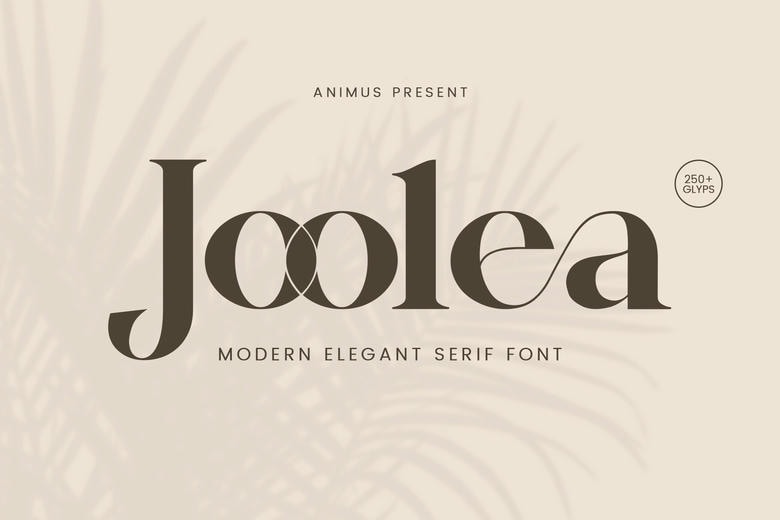
Joolea Font
The Joolea font is the epitome of refined grace, combining the classical serif bases with breathtaking modern flutters. This Joolea typeface is a high-fashion powerhouse, with over 250+ glyphs that can be used for unparalleled customization and creative expression. The highlight of the Joolea font is its beautiful interconnected ligatures (such as the overlapping double ‘o’ and the swashy ‘a’) which convert ordinary text to bespoke branding art.
It is a “quiet luxury” design that speaks volumes through its balanced proportions and delicate hairline terminals. The Joelea typeface will be a valuable addition to designers that is essential in high-end editorial design, higher end jewelry labeling, and high-end invitation suites.
It has an innate verticality to the Joolea font which goes hand in hand with sparse, soft focus photography and earth toned color schemes. Create a memorable logo of an architectural firm or a luxury spa with its help to anchor the mast head of a glossy magazine. Having a wide range of character set, this typeface makes every headline you create feel edited, classy, and eternally beautiful.
Joolea Serif Font